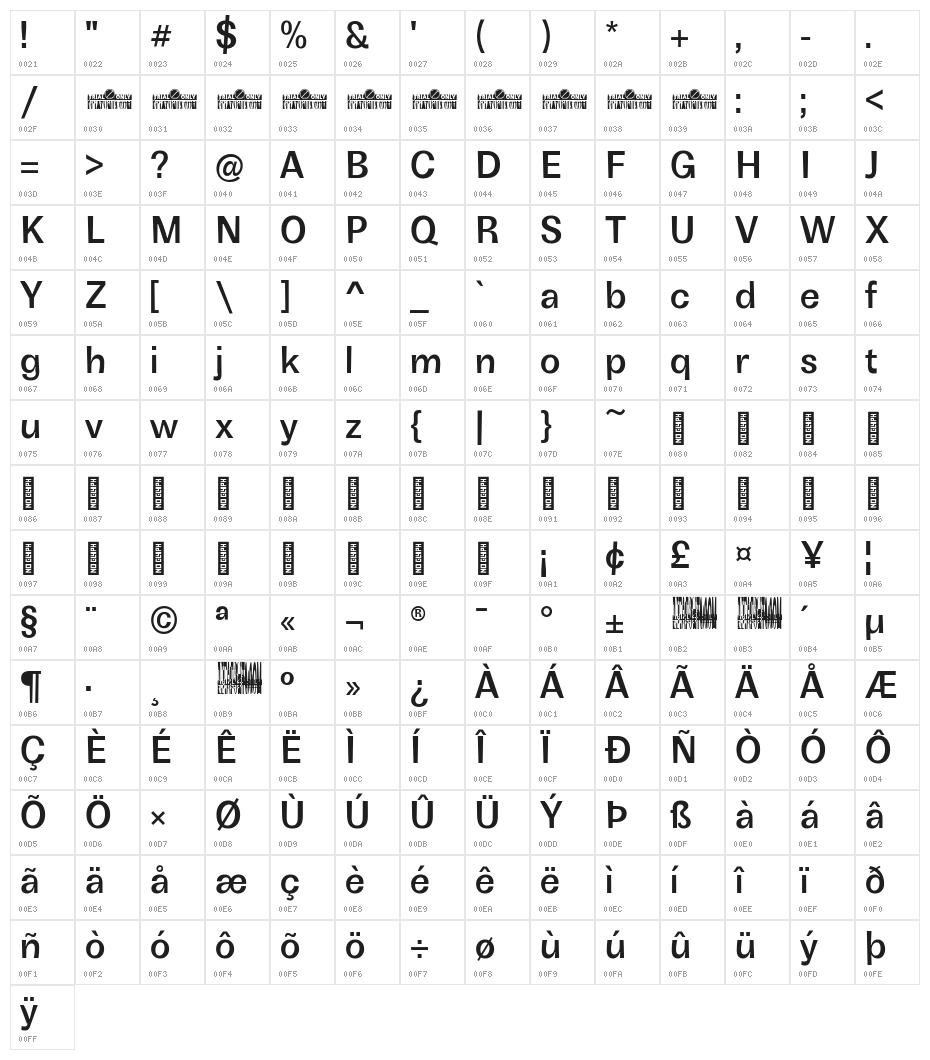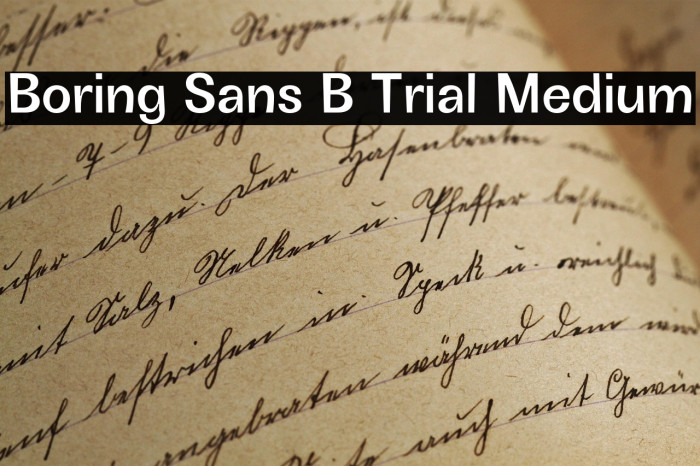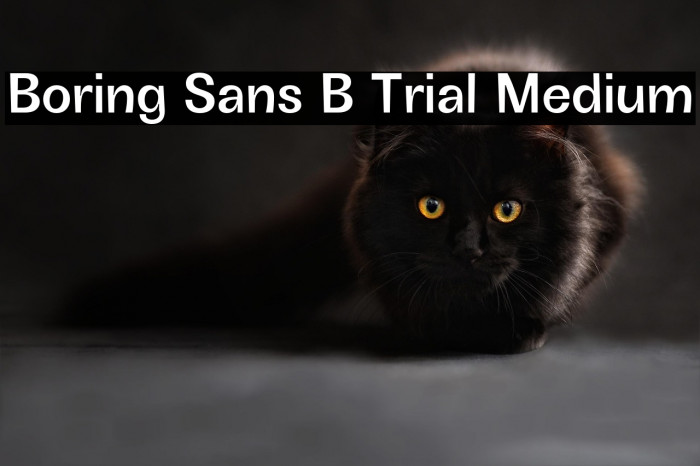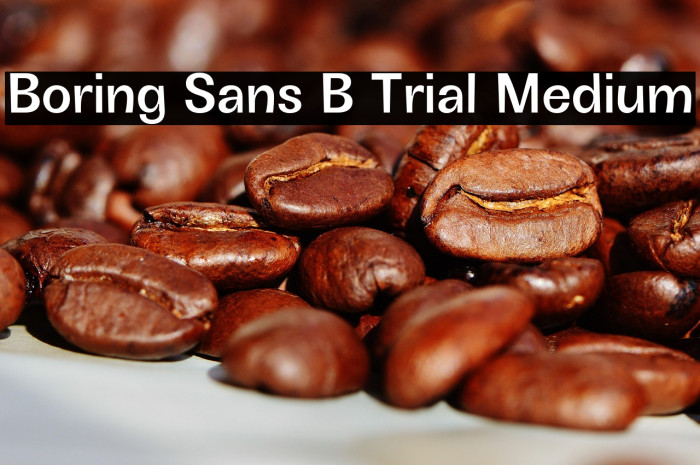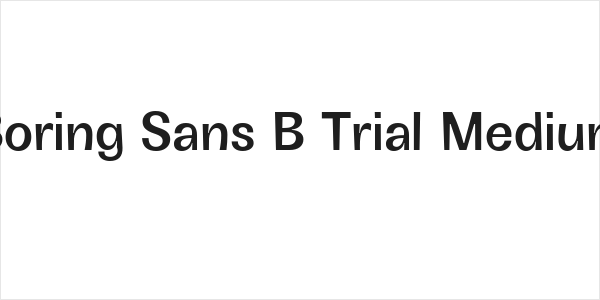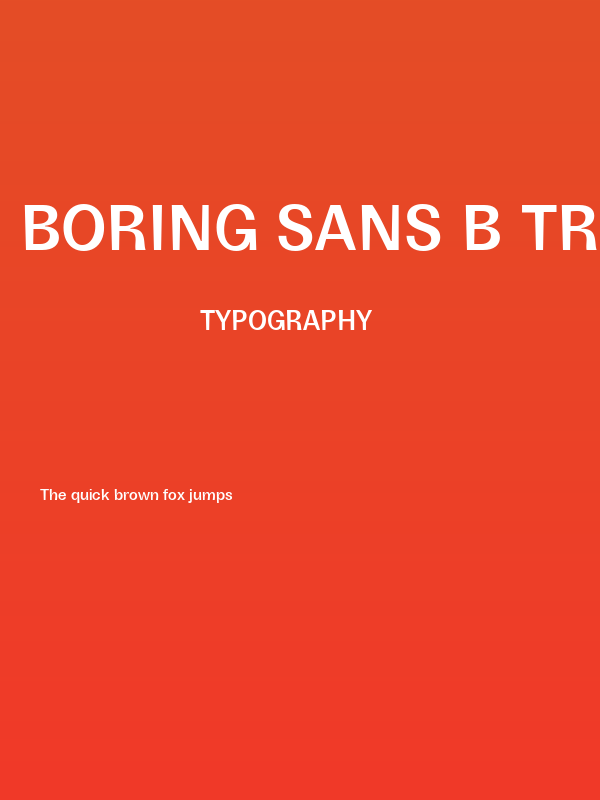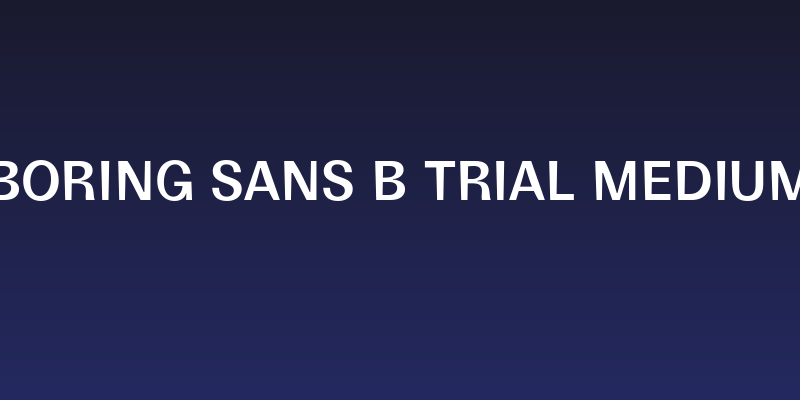
Boring Sans B Trial Medium Font
Boring Sans B Trial Medium Description
This font features a clean and straightforward sans-serif design, characterized by its medium weight and balanced proportions. The letters are crafted with a modern aesthetic, offering a uniform stroke width that ensures readability across various sizes. Its simplicity and clarity make it suitable for a wide range of applications. The uppercase and lowercase letters maintain a consistent style, with rounded edges that soften the overall appearance. The numerals and special characters are designed to complement the alphabet, ensuring a cohesive look throughout. This font is versatile, making it an excellent choice for both digital and print media.